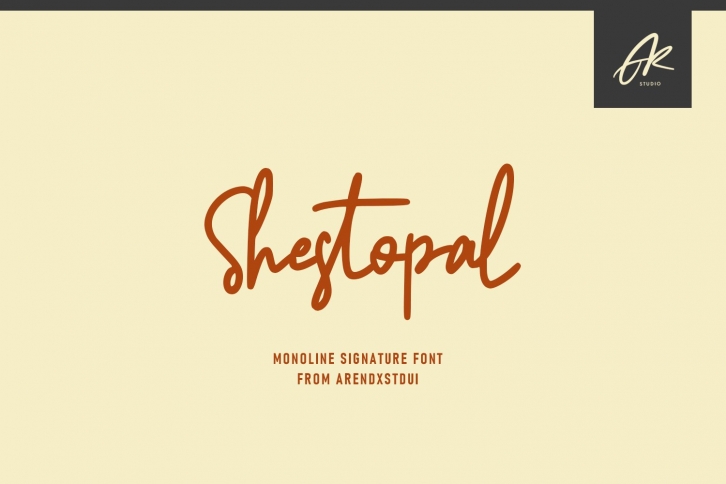
Shestopal Monoline Signature is a trendy and unique font with an authentic style. It was designed by Arendxstudio and it's a great choice for creative people who need such a font. It was released on April 29, 2020 and the file size is 19.25 MB. Shestopal Monoline Signature will add an organic vibe to any design idea!